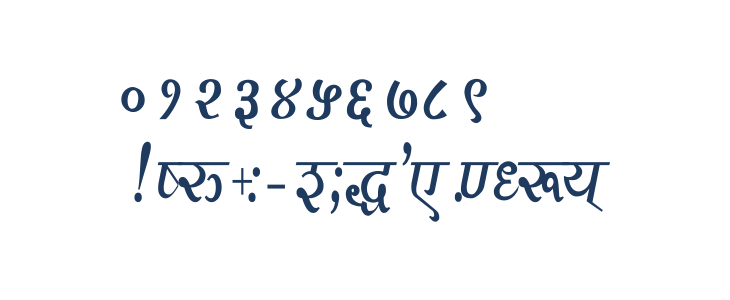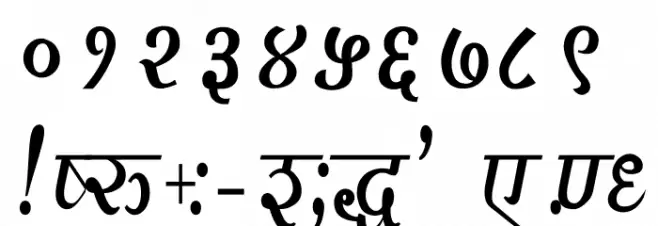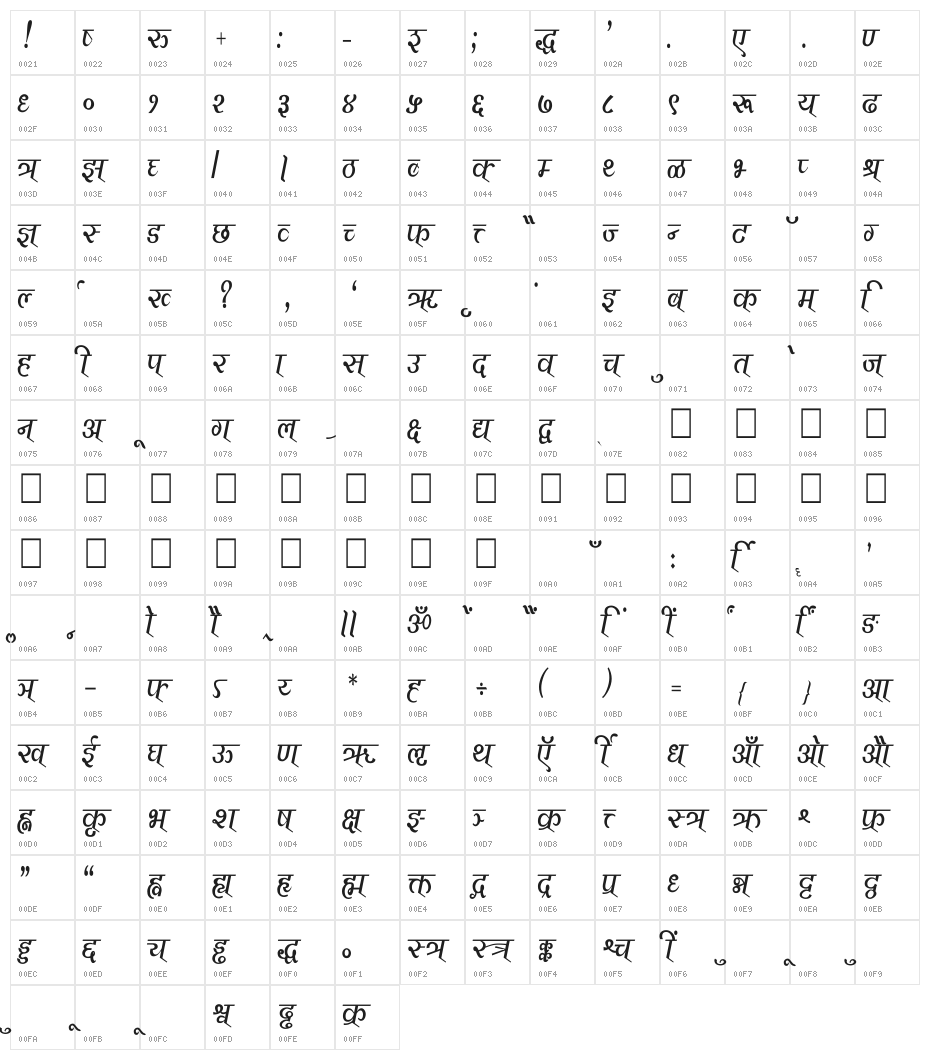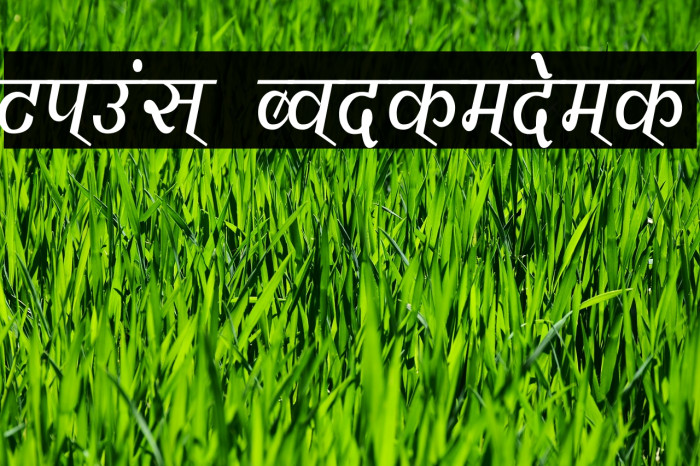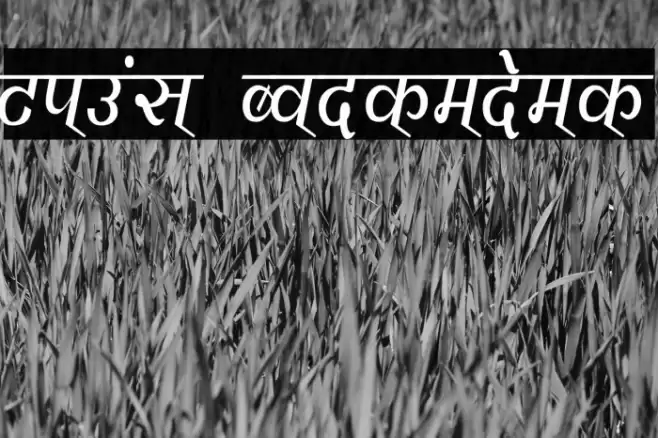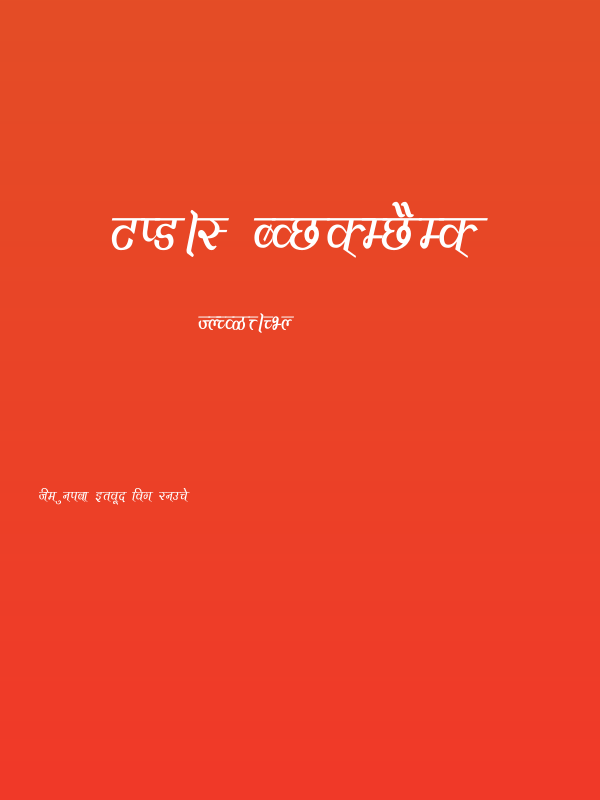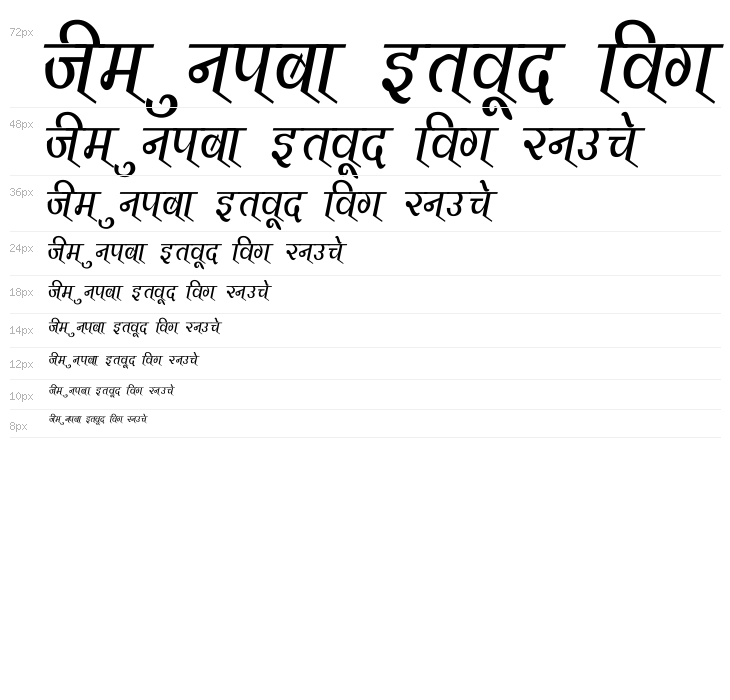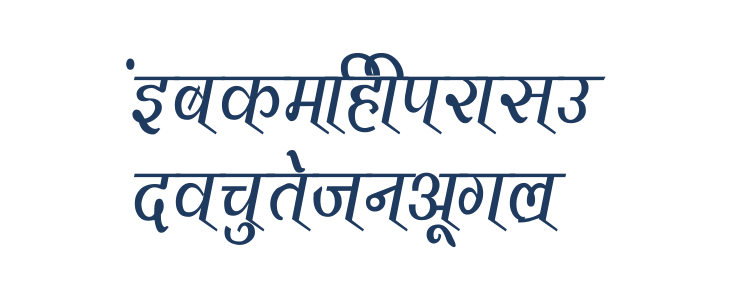
Vimal Condensed Font
Vimal Condensed Description
This font exhibits a traditional Devanagari script style with a condensed form, characterized by its elegant and flowing strokes. The characters are intricately designed, maintaining a balance between readability and artistic flair. The script features distinct horizontal lines that connect the letters, a hallmark of Devanagari, while the vertical strokes are slightly slanted, adding a dynamic feel. The numerals are consistent with the script's overall aesthetic, ensuring uniformity across different character types. Special characters are included, maintaining the script's stylistic integrity. This font is suitable for projects that require a classic yet sophisticated look, particularly in contexts where the Devanagari script is used.
| Use Case | Headlines, Logos, Cultural materials |
| Proposed Projects | Ideal for traditional publications, cultural event materials, educational content, and artistic projects requiring Devanagari script. |